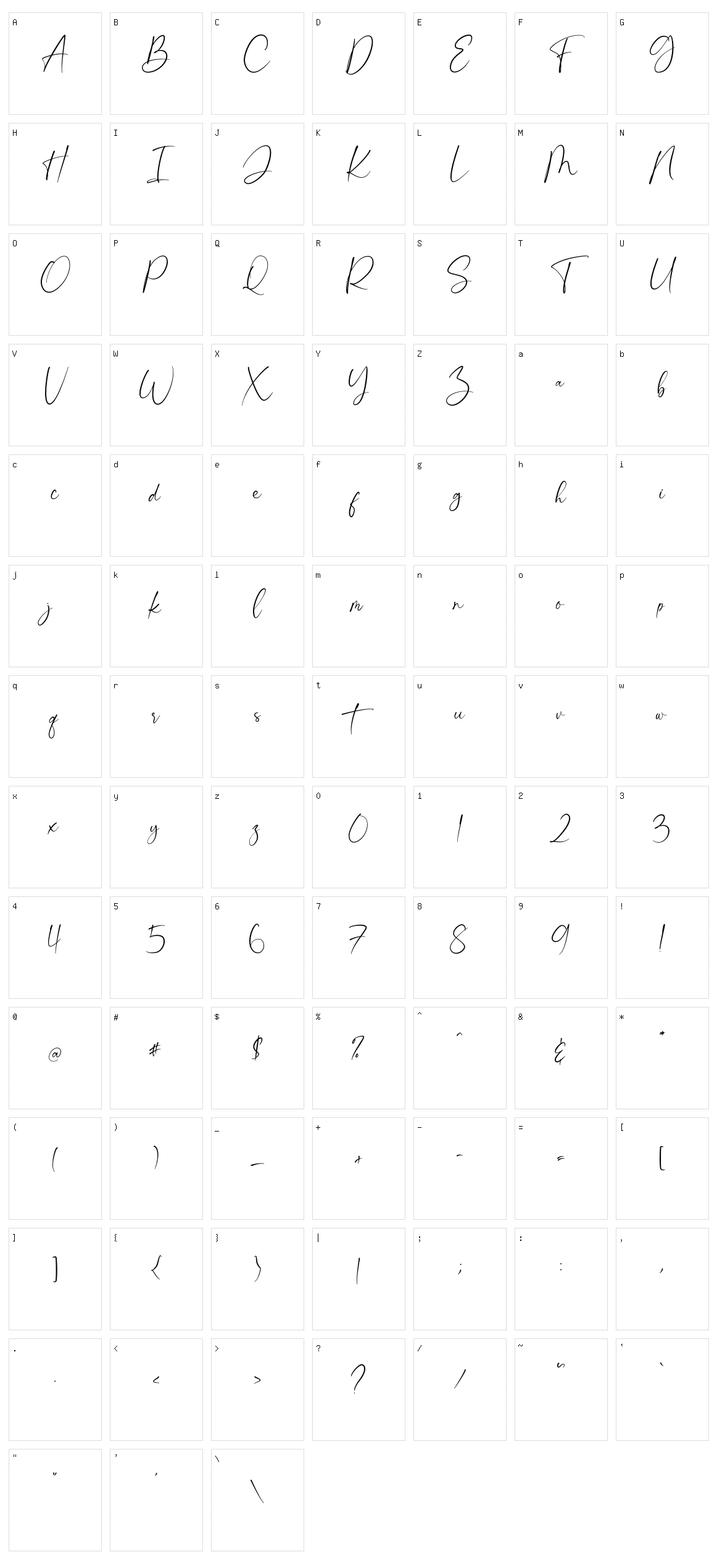
The free font Bikambone is carefully designed by Azcreative Studio, showcasing a thoughtful balance of creativity and usability and falls under the Script font style. When you download the ZIP file, it contains only 156.02 KB of font files, making it lightweight and quick to download. Please review the license details below to understand permitted usage and distribution rights. If license information is not available, we recommend using this font for personal projects only or contacting the author directly for commercial usage permissions.